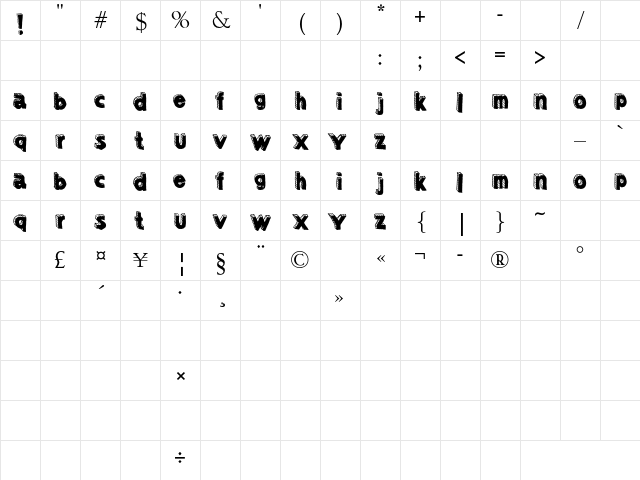
Sketched 3d DEMO by Marta van E Regular
Designer: Marta Waniek
Design Context for Sketched 3d DEMO by Marta van E
Sketched 3d DEMO by Marta van E is a composed and adaptable typeface that performs quietly and consistently across a wide range of design contexts.